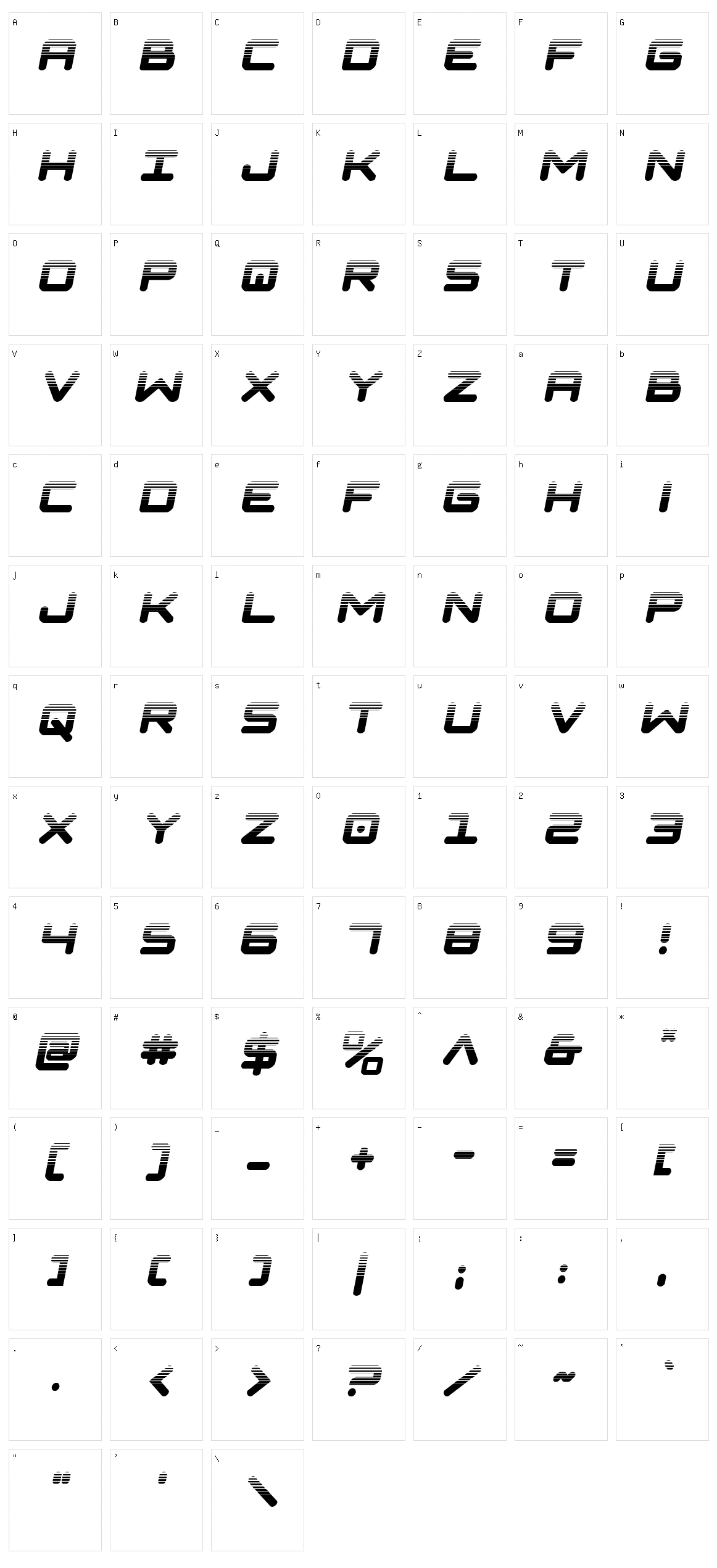
NGC 292
Description: The free font NGC 292 is carefully designed by Iconian Fonts, showcasing a thoughtful balance of creativity and usability and belongs to the Techno font family. When you download the ZIP file, it contains only 516.89 KB of font files, making it lightweight and quick to download. Please review the license details below to understand permitted usage and distribution rights. If license information is not available, we recommend using this font for personal projects only or contacting the author directly for commercial usage permissions.
This font comes with the following 23 versions: Regular, Italic, Semi-Italic, Super-Italic, Leftalic, Semi-Leftalic, Condensed, Condensed Italic, Condensed Semi-Italic, Expanded, Expanded Italic, Expanded Semi-Italic, 3D, 3D Italic, 3d Semi-Italic, Gradient, Gradient Italic, Gradient Semi-Italic, Halftone, Halftone Italic, Halftone Semi-Italic, Title and Title Italic.